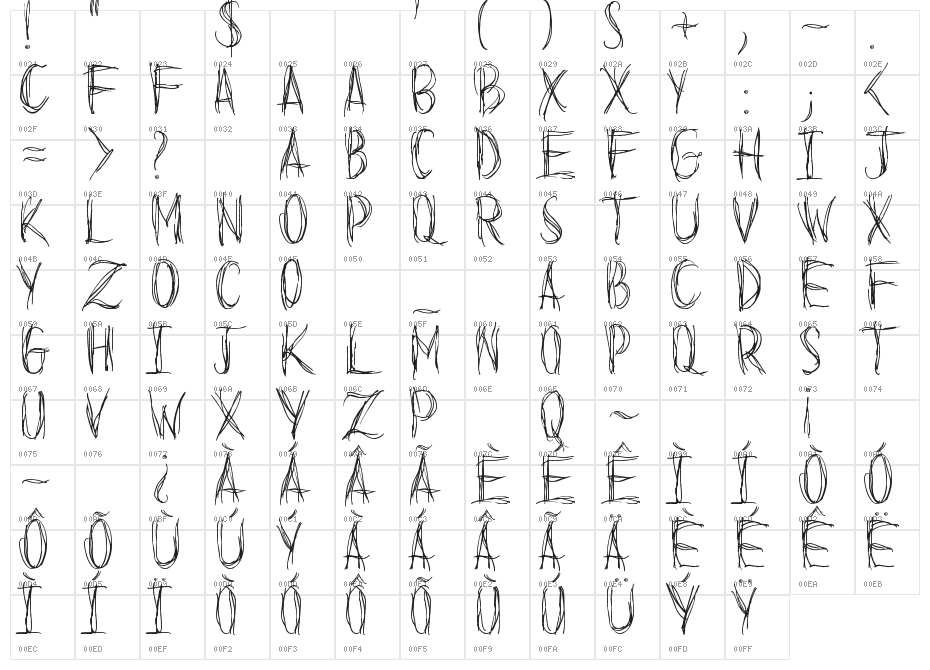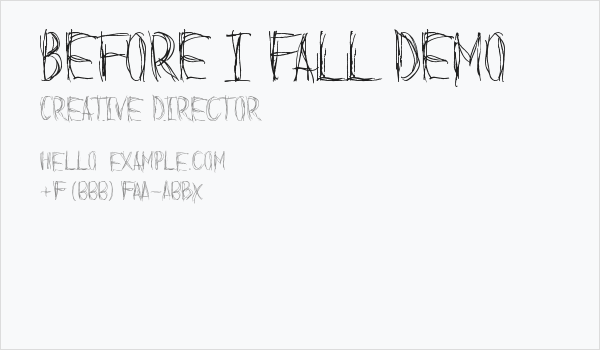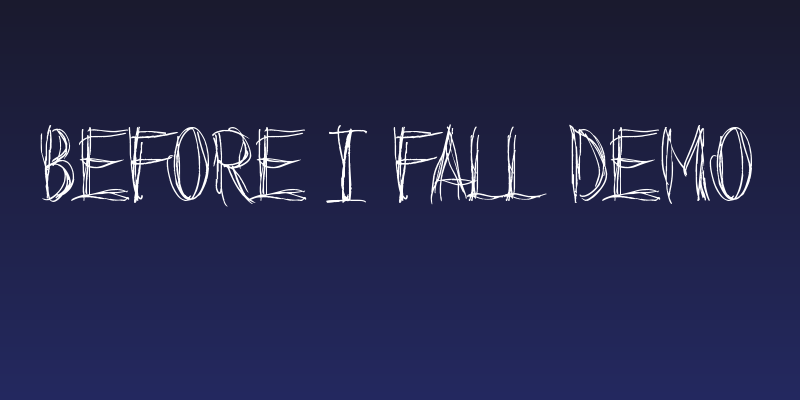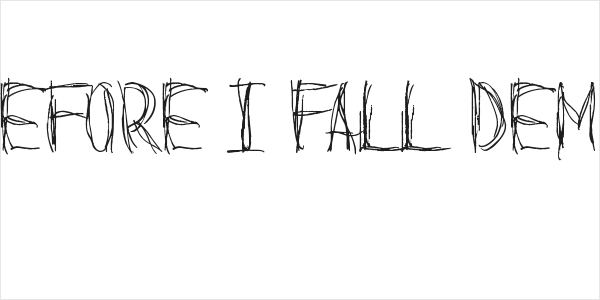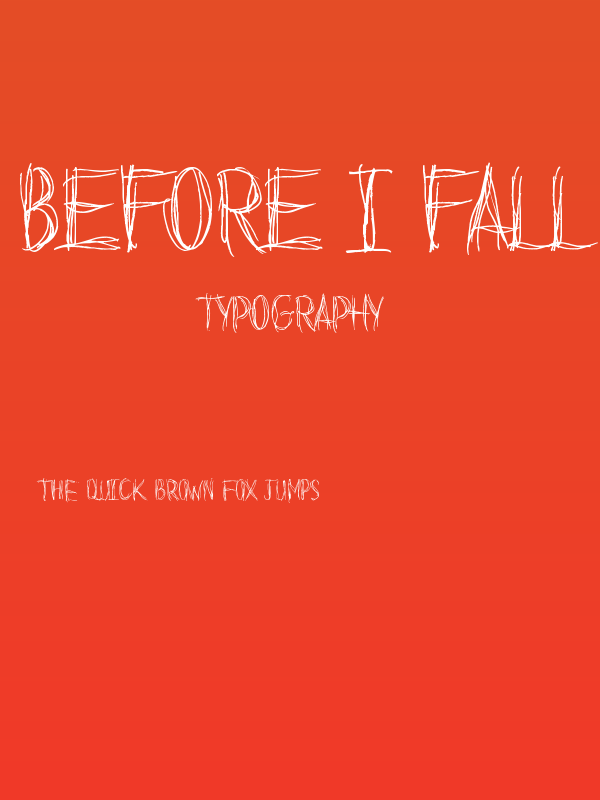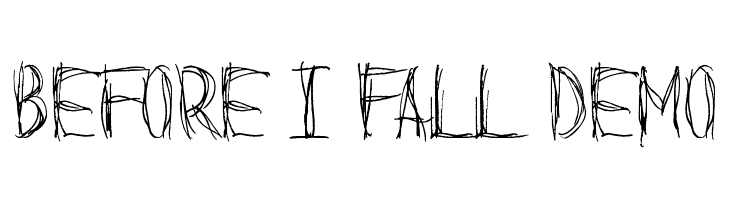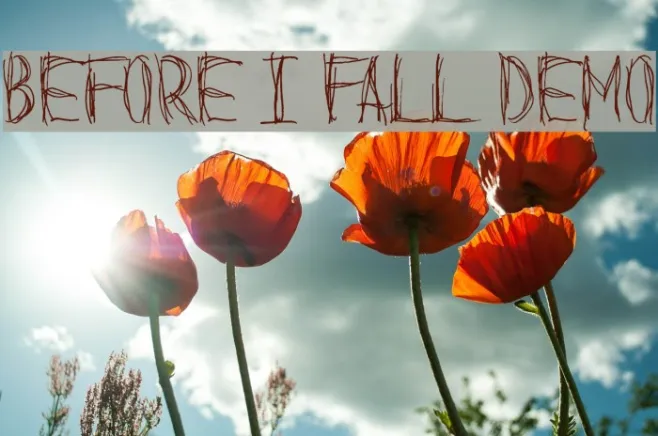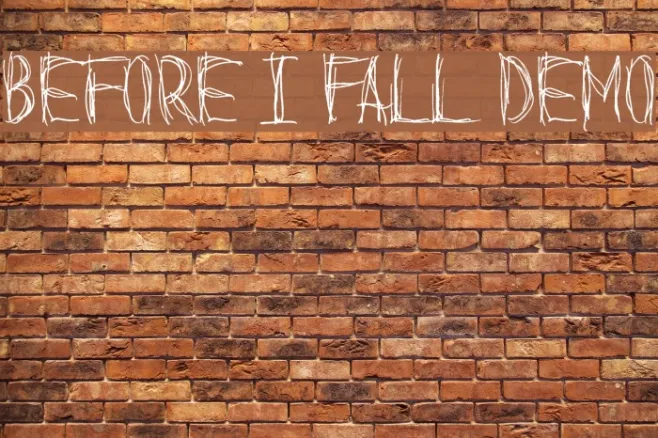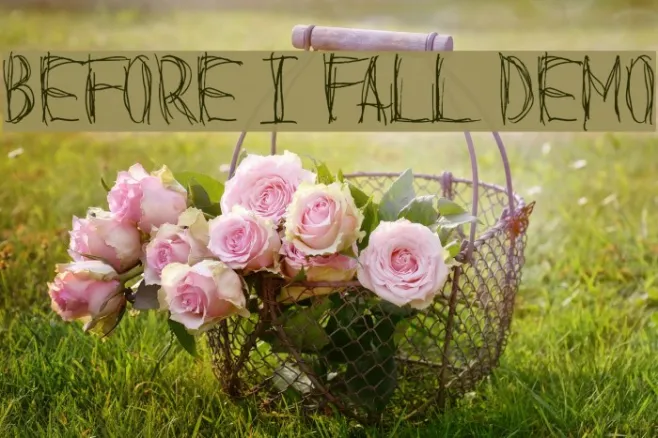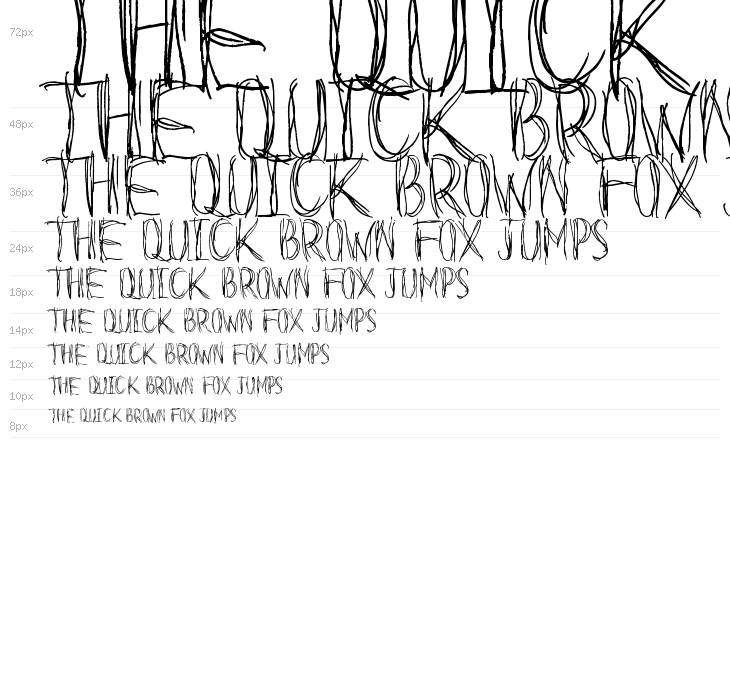
Before I Fall Demo Font
Before I Fall Demo Description
This font features a highly expressive and artistic style, characterized by its hand-drawn appearance. The letters are irregular and dynamic, with a sketch-like quality that gives them a raw and edgy feel. The strokes are uneven, with varying thicknesses that add to the font's unique personality. This style is reminiscent of graffiti or street art, making it ideal for projects that require a bold and unconventional look. The uppercase and lowercase letters maintain a consistent style, while the numbers and special characters complement the overall aesthetic. The font's chaotic yet controlled design makes it stand out, perfect for creative and artistic applications.
| Proposed Projects | Ideal for album covers, posters, street art projects, and edgy branding. |